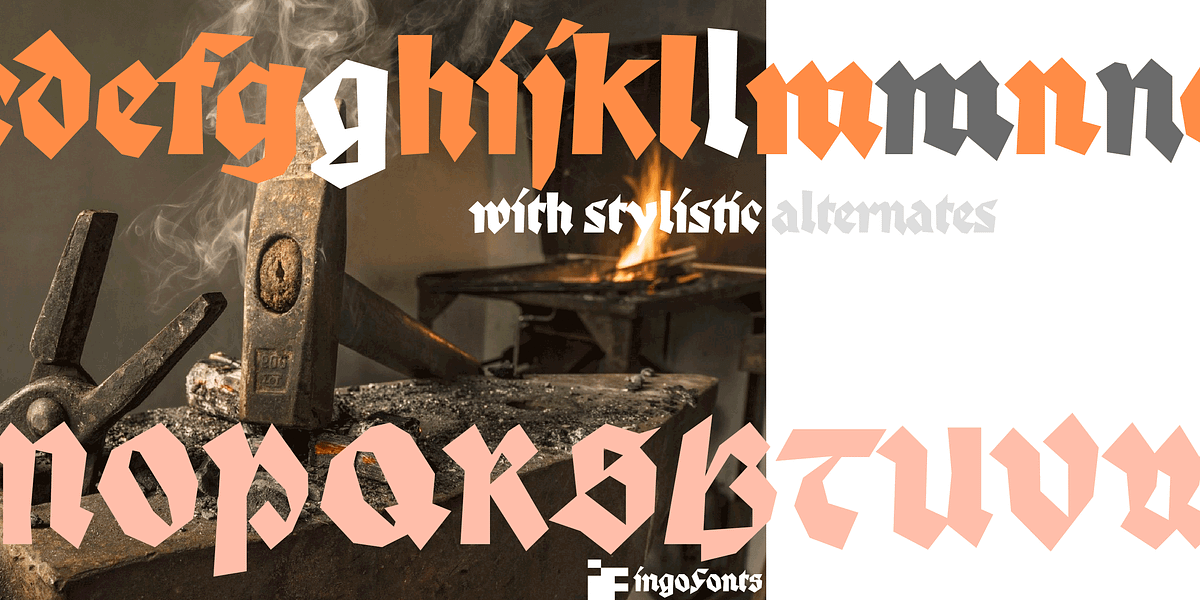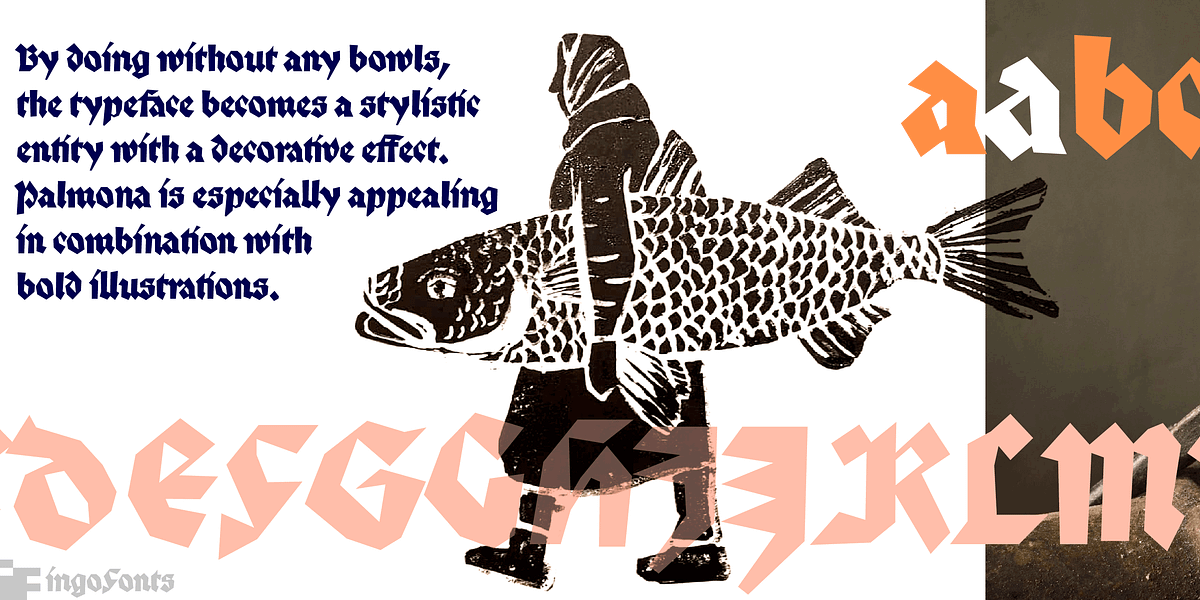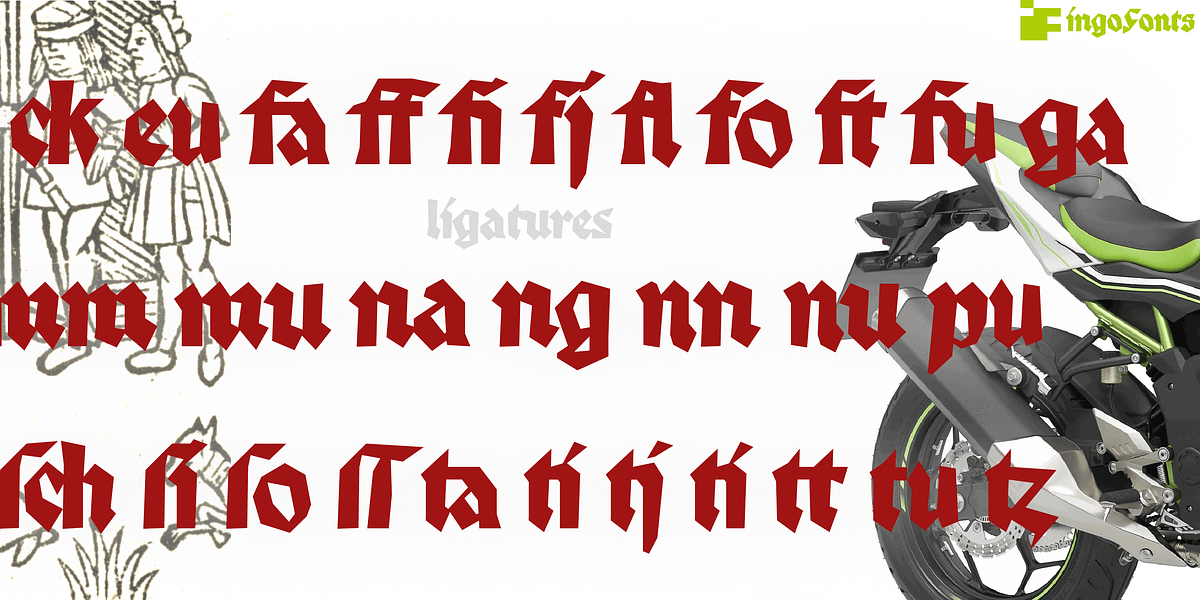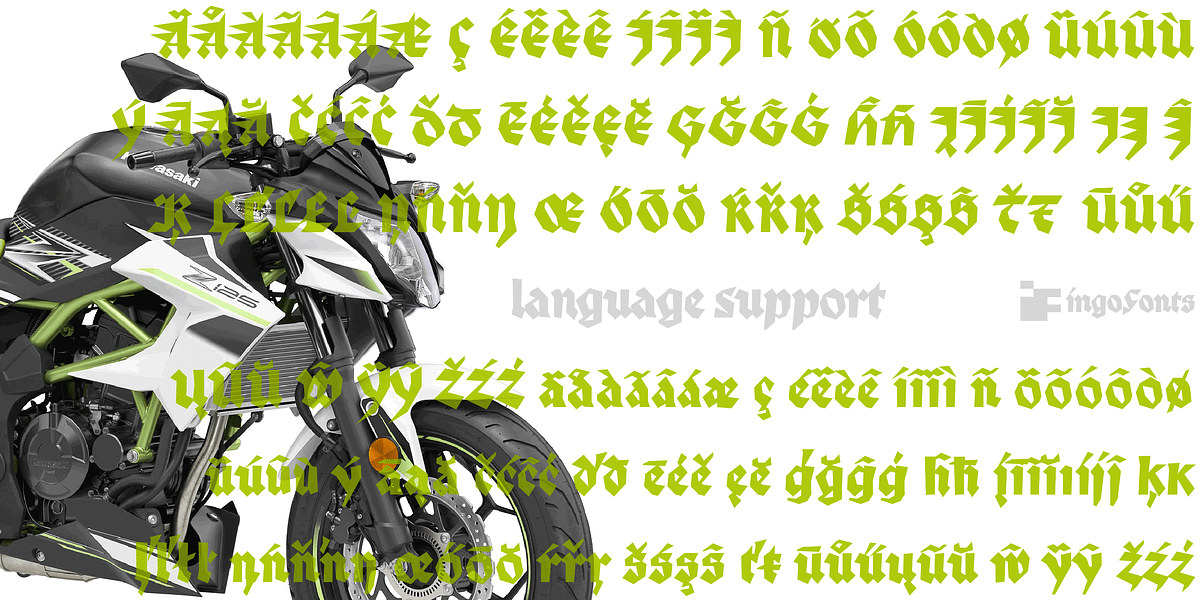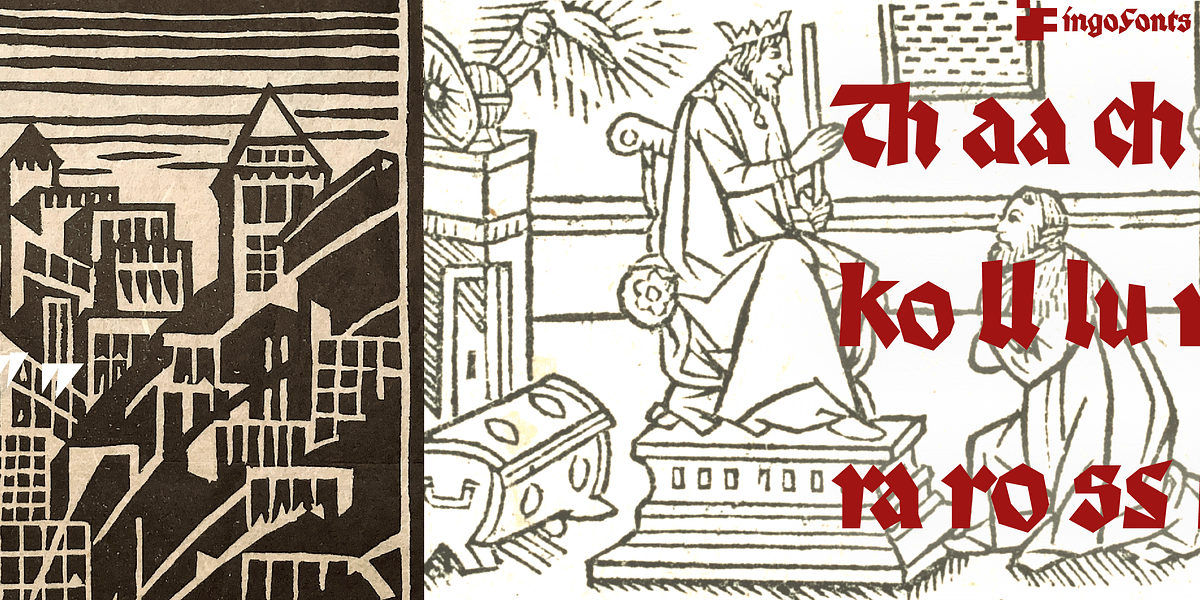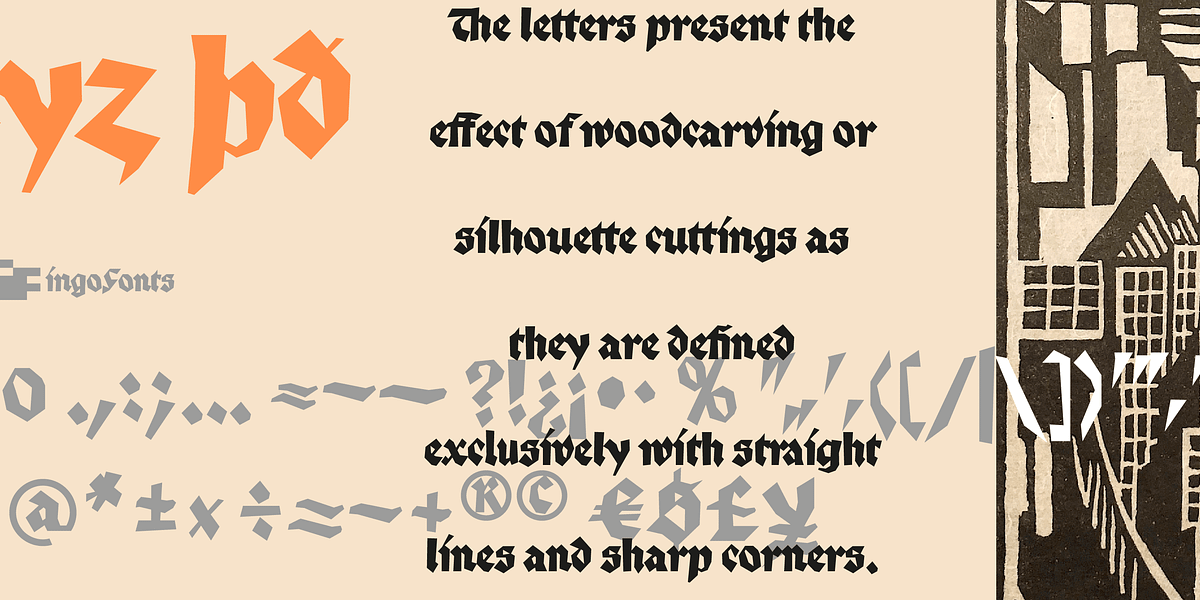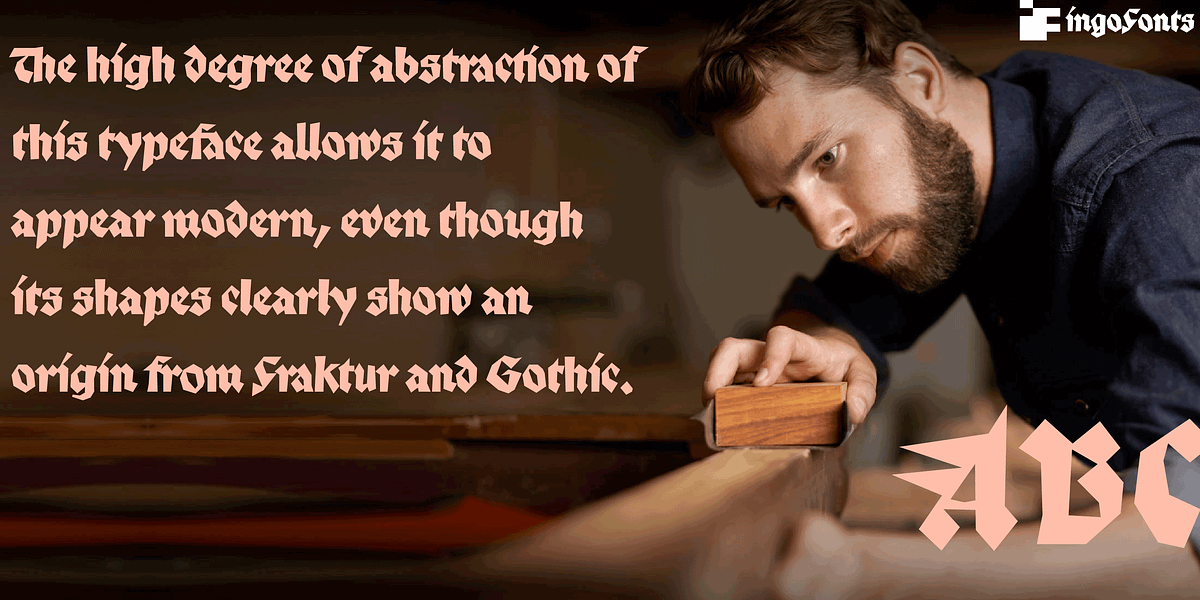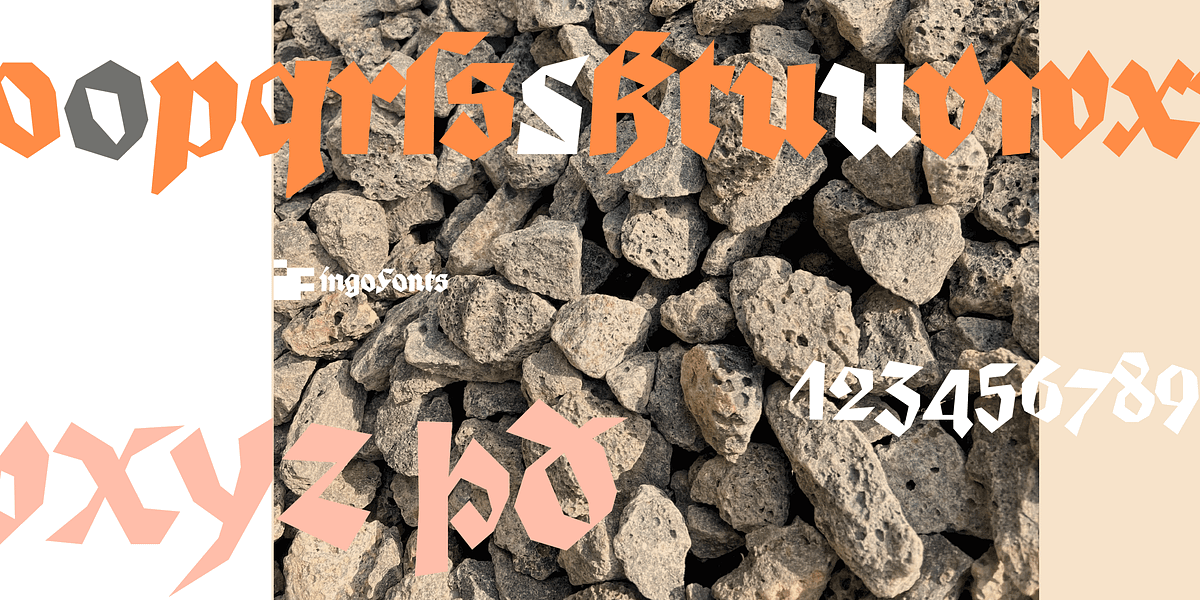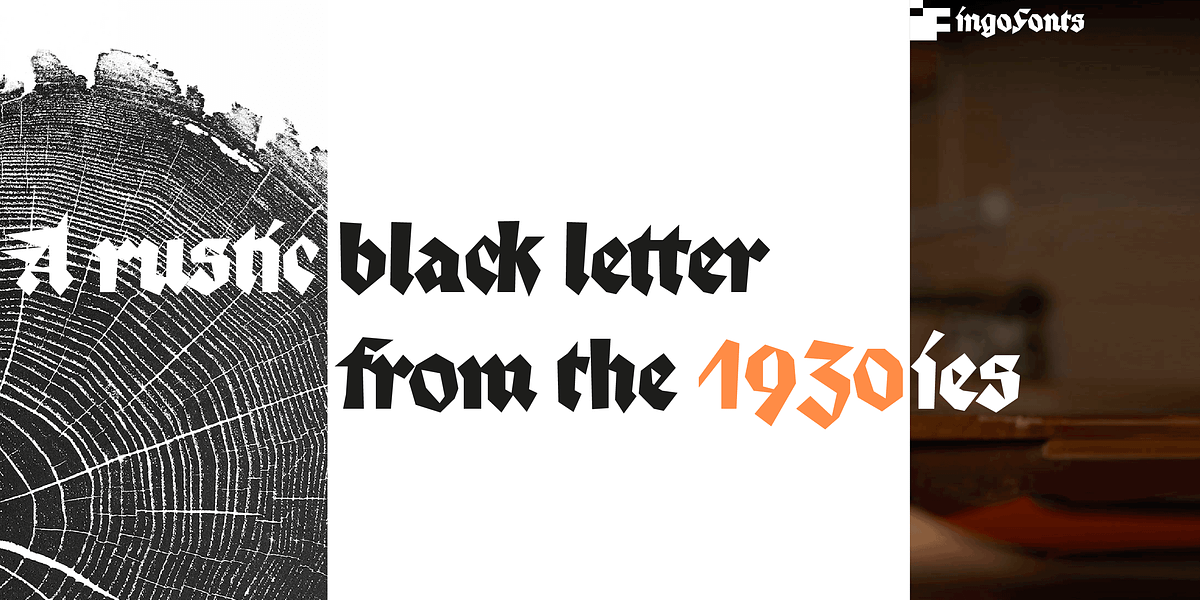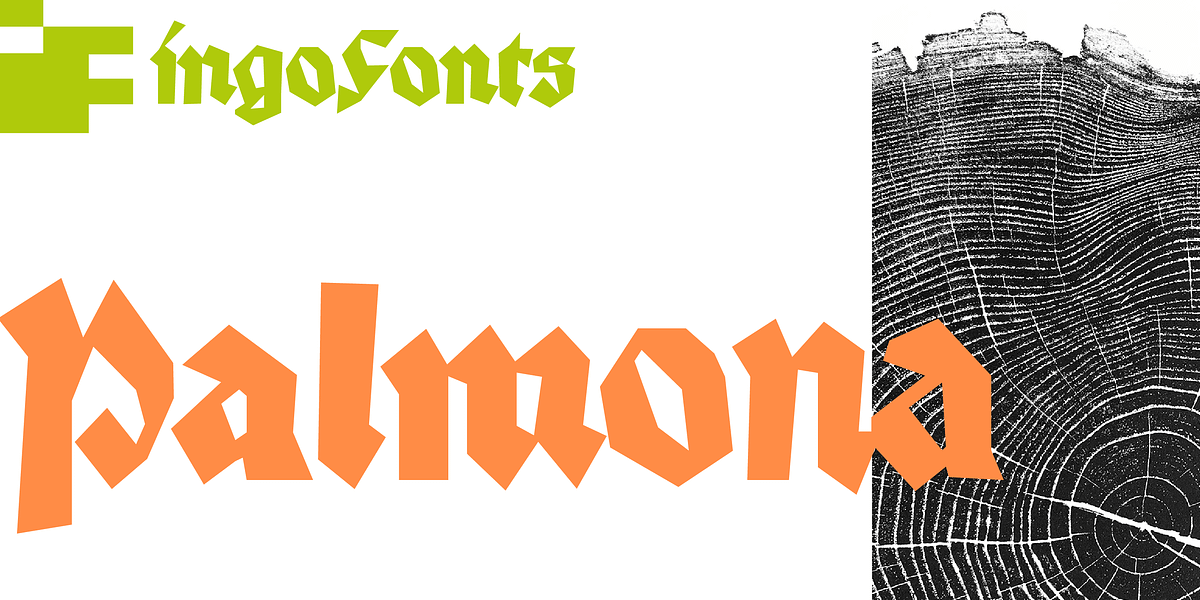
Palmona
Palmona is a blackletter typeface that evokes a rustic and vintage aesthetic. Its design draws inspiration from Fraktur and Gothic styles, characterized by sharp corners and angular lines. The absence of bowls gives the typeface a unique stylistic entity with a decorative effect. Notably, Palmona features stylistic alternates accessible through OpenType functions, allowing for variation in letterforms and enhanced visual appeal. The font supports a wide range of European languages and includes both long s and capital ß characters.